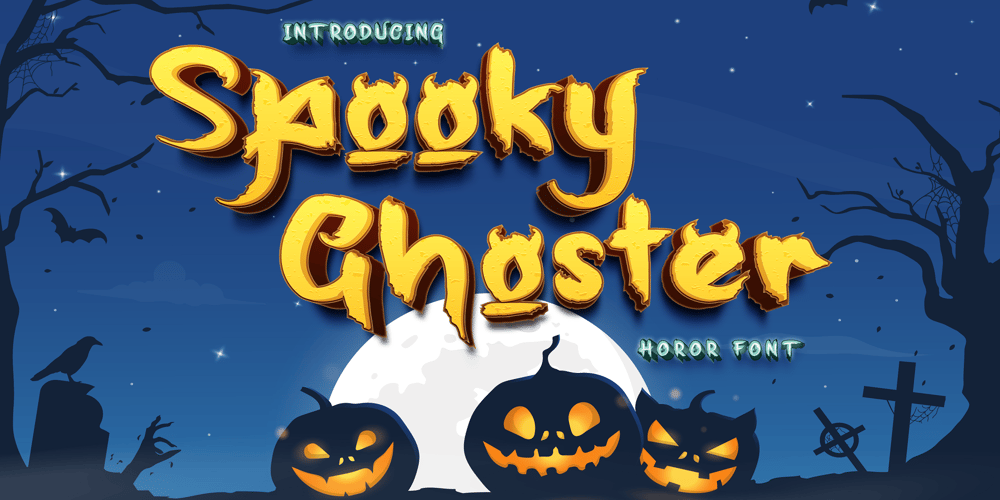
Spooky Ghoster
Spooky Ghoster font
Spooky Ghoster Font Family was designed by Tio Yulianto and published by Javatypestd. Spooky Ghoster contains 1 styles and family package options. Introducing Spooky Ghoster Font with a scary horror theme. Masterfully designed to become a true favorite, this font has the potential to bring each of your creative ideas to the highest levelSpooky Ghoster best uses for Logotype, heading, cover, poster, logos, quotes, product packaging, header, merchandise, social media & greeting cards and many more.This font is also support multi language.To access the alternate glyphs, you need a program that supports OpenType features such as Adobe Illustrator CS, Adobe Photoshop CC, Adobe Indesign and Corel Draw.